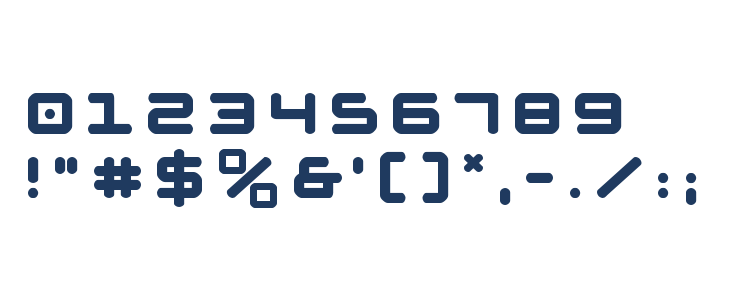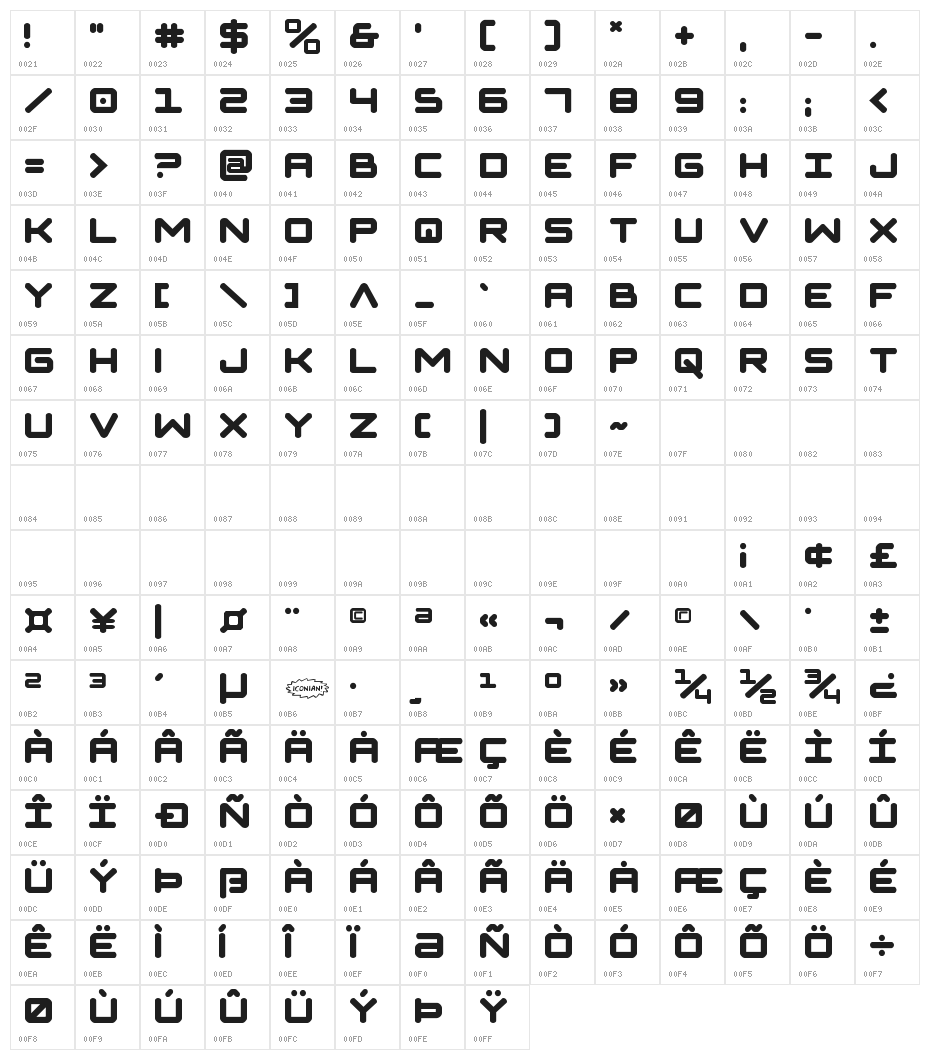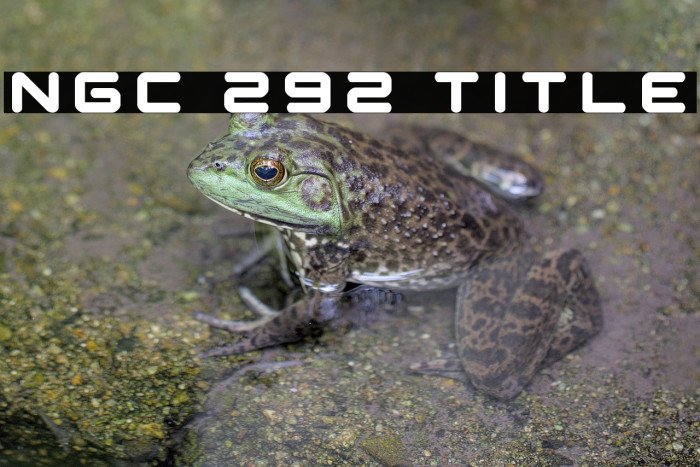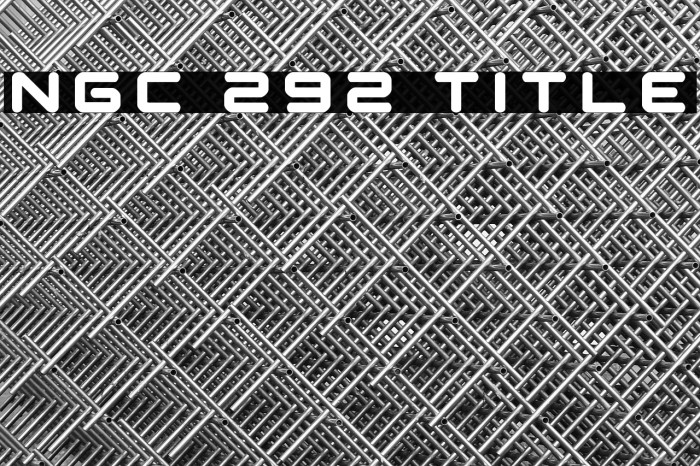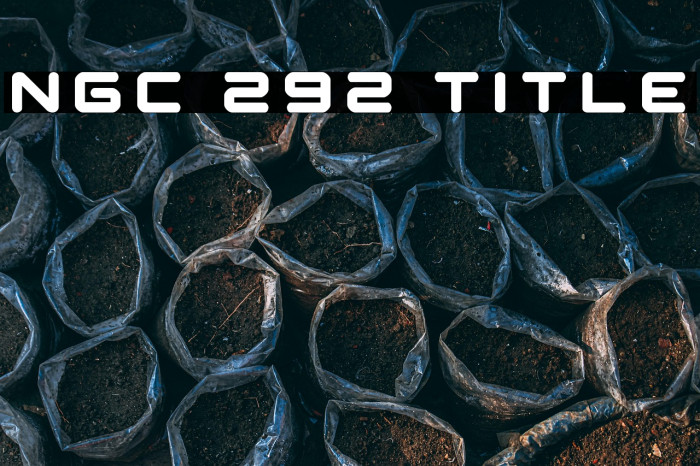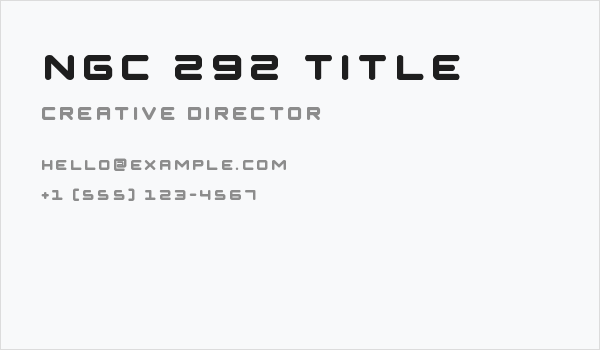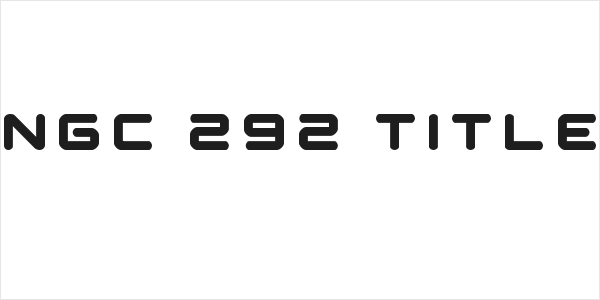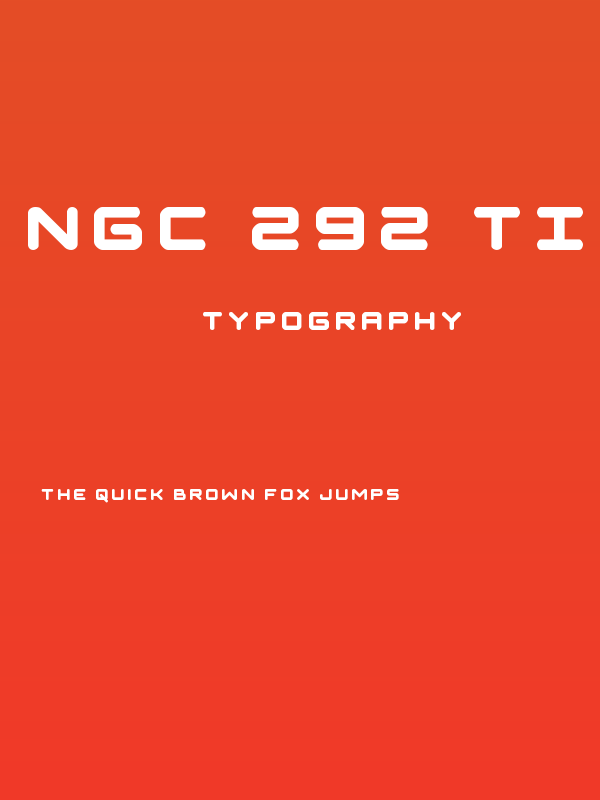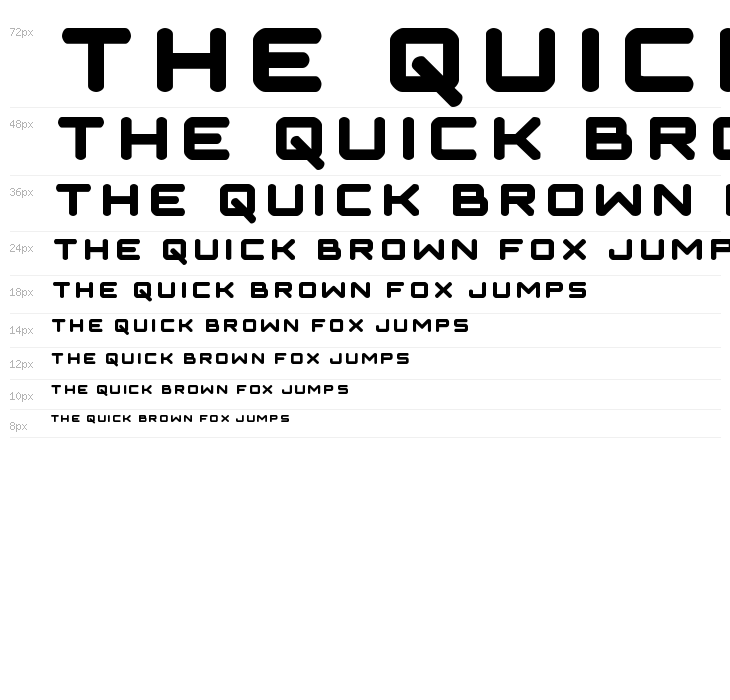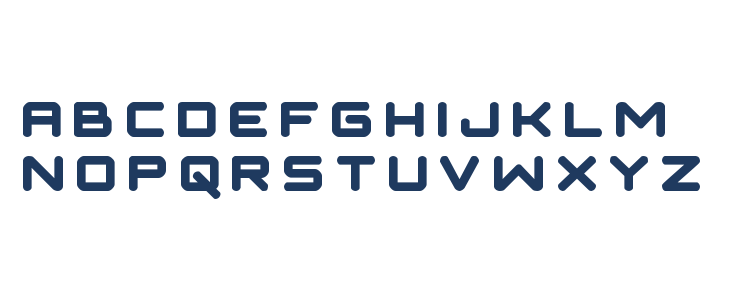
NGC 292 Title Font
NGC 292 Title Description
This font features a modern, geometric style with rounded edges and a monospaced design. Each character is uniformly spaced, providing a clean and organized appearance. The uppercase and lowercase letters are consistent in width, enhancing readability and creating a balanced look. The numerals and special characters maintain the same geometric aesthetic, making them suitable for digital displays and technical documentation. The overall design is sleek and contemporary, ideal for projects that require a futuristic or tech-oriented feel.